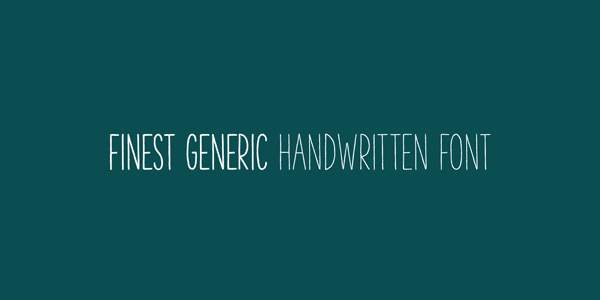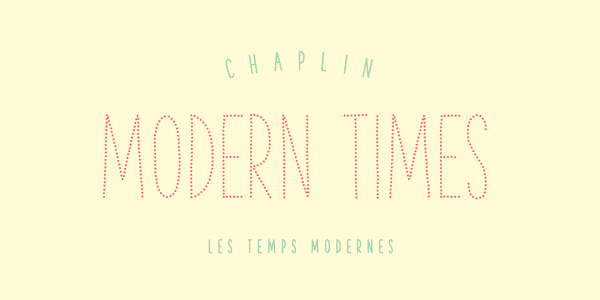
Hand Drawn Type Family : The Hand.
Do you like natural hand drawn typefaces? The Hand is another outstanding handwritten font family designed in 2013 by Fanny Coulez and Julien Saurin of the French type foundry La Goupil Paris. Its handwritten typeface has a balanced and well legible appearance that fits to any kind of design. You can use it for retro/vintage designs as well as modern designs with a natural touch. The Hand is an all-caps font family consisting of 5 weights plus a regular dotted font version. The Hand includes several alternate characters to achieve a more natural style in your writings.